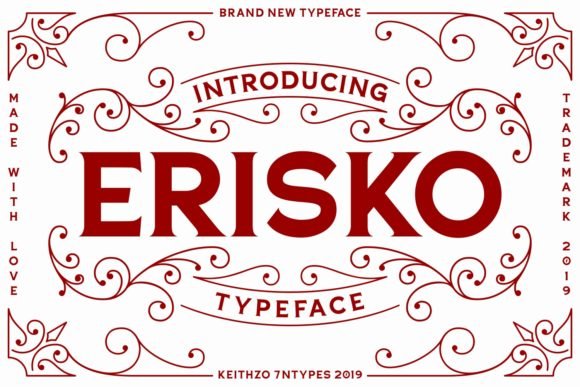
The Perfect Blend of Elegance and Whimsy: Introducing Erisko Font
There’s nothing quite like the thrill of finding the perfect font to bring your design to life. Imagine pouring over rows of typography, searching for that one special something that will elevate your project from good to great. For designers, this moment is a game-changer – and it’s exactly what happens when you discover the stunning Erisko Font.
Erisko Font is a vintage-inspired masterpiece that combines beautiful ornaments with a rich, luxurious feel. Whether you’re crafting wedding invitations, social media graphics, or greeting cards, this must-have font is sure to add a touch of sophistication and whimsy to your designs. With its unique blend of elegance and playfulness, Erisko Font is a valuable addition to any designer’s toolkit, offering endless possibilities for creativity and self-expression.
Erisko Font Key Features
- Unique Characteristic: Features a distinctive blend of modern and vintage elements, making it suitable for various design projects
Erisko Font Review
Erisko Font is a font I’ve had the chance to work with, and I must say it has its own unique charm. ✨ The elegant lines and refined curves give it a sophisticated look that’s perfect for high-end branding and luxury products. The font’s versatility makes it suitable for a wide range of applications, from headings to body text.
- ✨ Elegant and refined design
- ✨ Suitable for luxury and high-end branding
- ✨ Good for headings, body text, and other applications
However, there are some limitations to consider. ⚠️ The font may be too ornate for some designs, and the complexity of its curves can make it challenging to read at smaller font sizes. Additionally, the font’s bold weight may not be as effective as other fonts in this regard.
- ⚠️ May be too ornate for some designs
- ⚠️ Can be challenging to read at smaller font sizes
- ⚠️ Bold weight may not be as effective
Overall, I think Erisko Font is a solid choice for designers looking for a sophisticated and elegant font. While it may have some limitations, its unique charm and versatility make it worth considering for the right project.
Erisko Font is ideal for:
- Modern and elegant designs.
- Creating intricate typography.
- Professional-looking presentations and documents.
Alternatives to Erisko Font for Designers